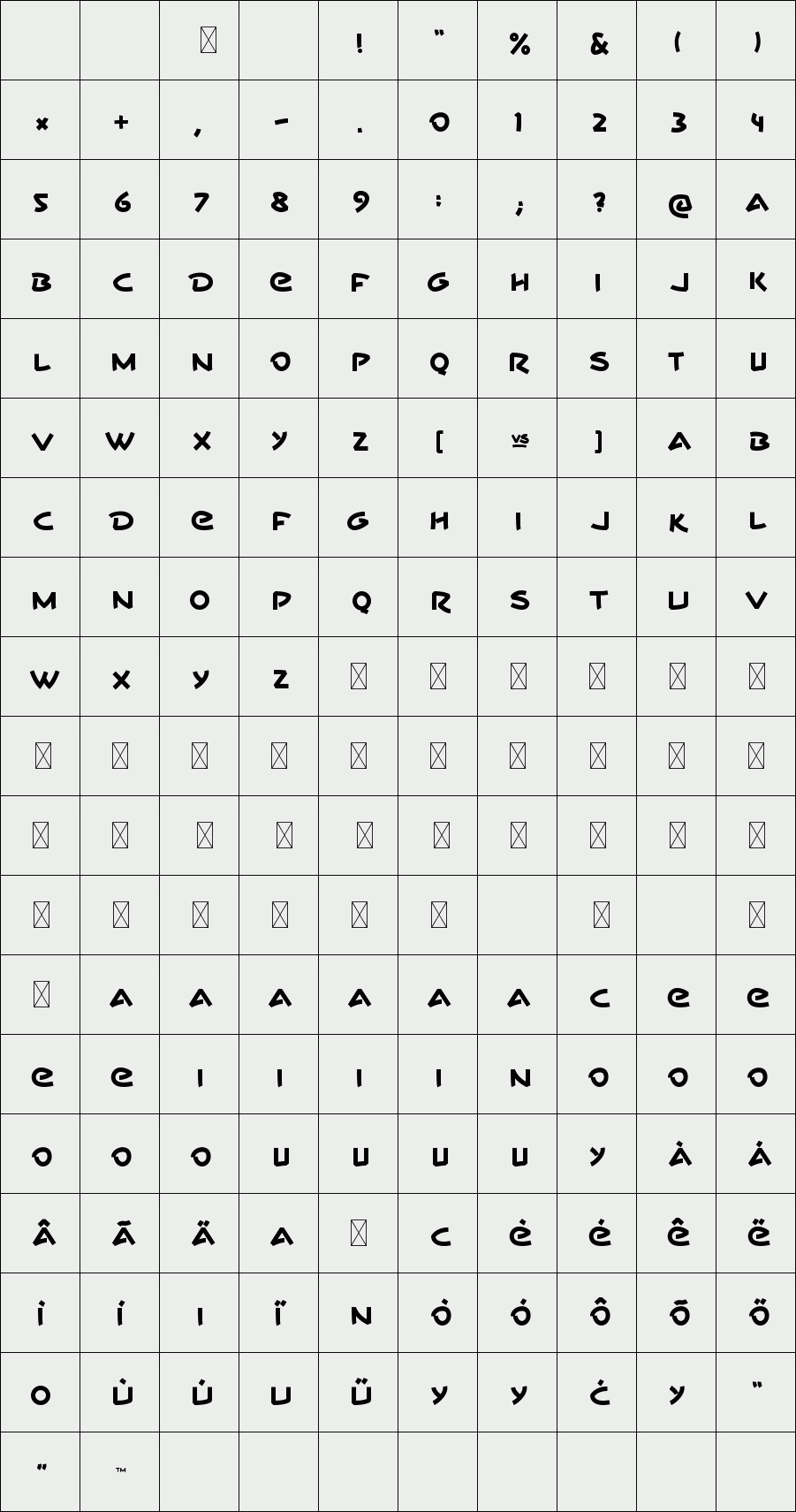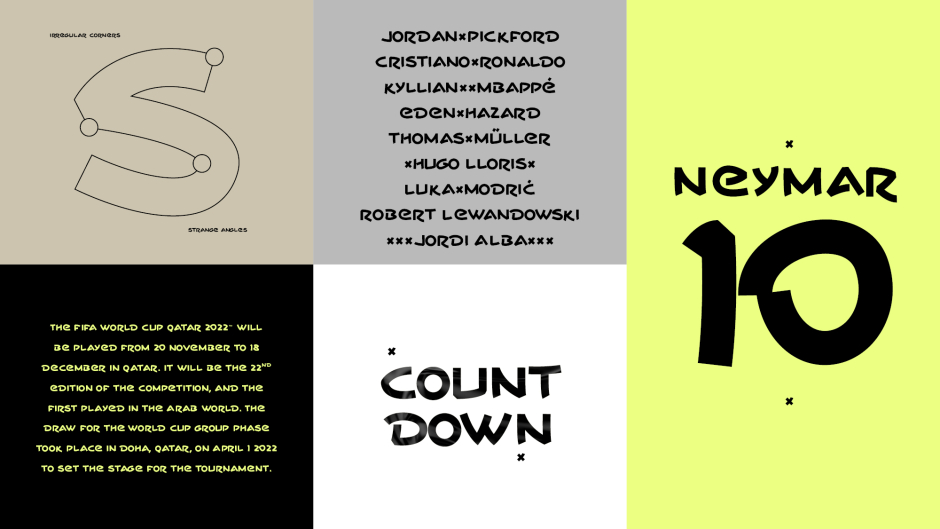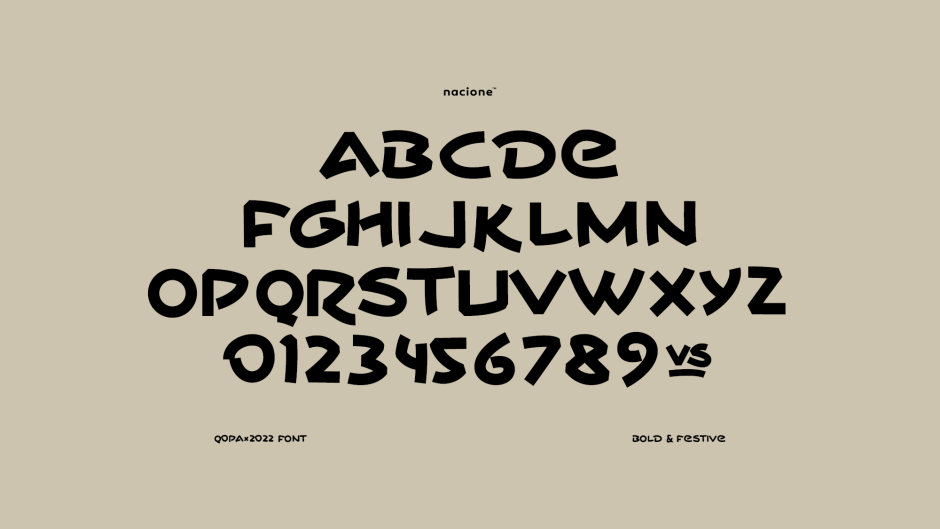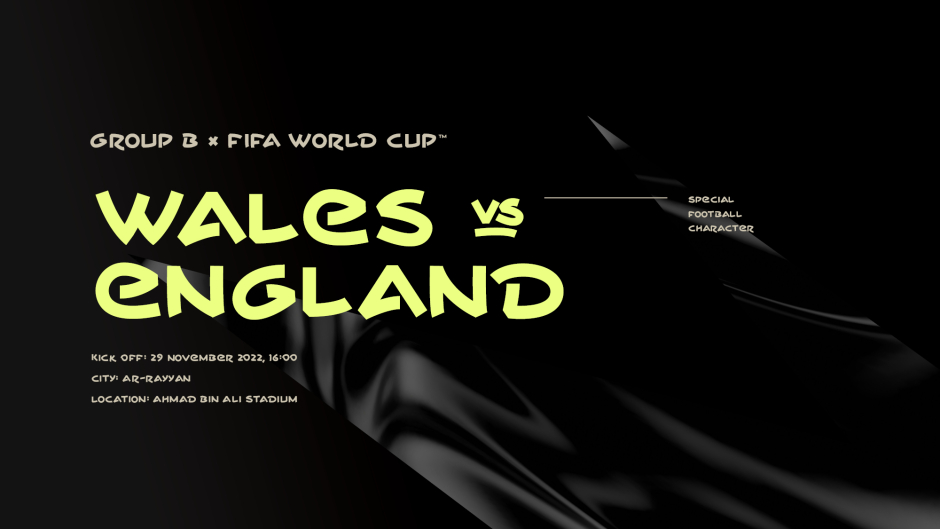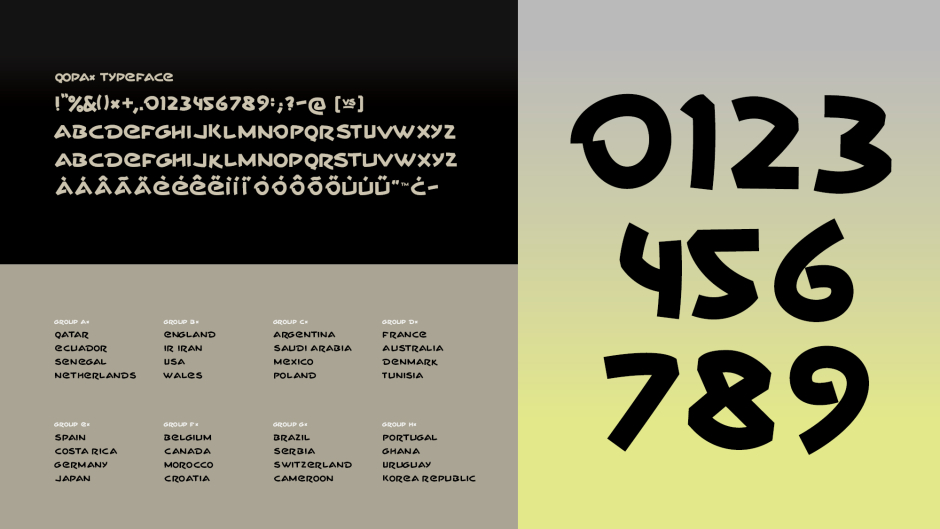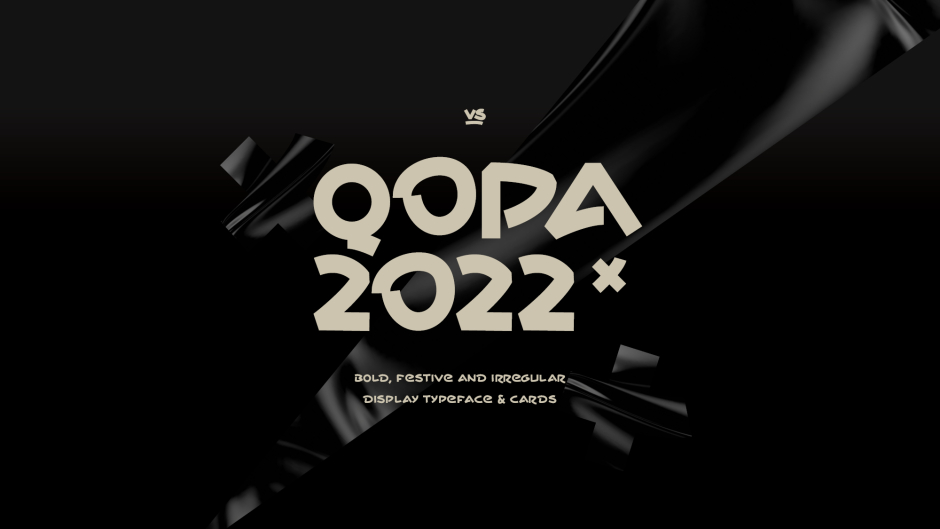
Qopa22
Qopa22 typography is a commemorative work made in honor of the World Cup in 2022, and follows a sequence of projects that are developed in years of competition by Nacione™. For this edition, a rescue was made of the emotion and anxiety regarding the tournament, materializing speed and handwritten typography in a project that is defined through football.
With irregular types and spacing, Qopa22 typography has a contemporary, festive language with a unique personality. The idea of honoring the wait for a World Cup came about through the tournament draw, where we filled in each space by hand with the country that had occupied the disputed position. The drawings of each type, with few differences between upper and lower case, were selected to belong to the same writing, with haste, personality and a certain elegance. Some special characters were added as the project evolved, but not all of them were developed on purpose.
Designer: Ricardo Carvalho